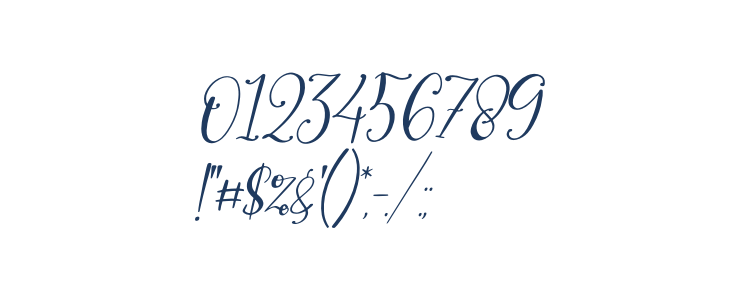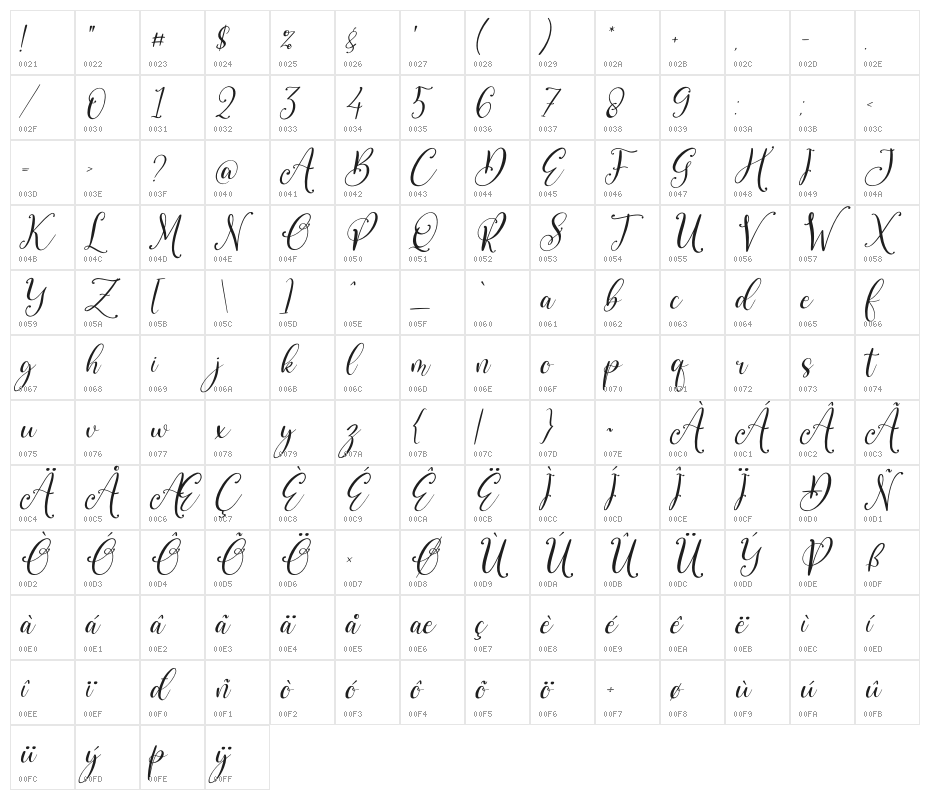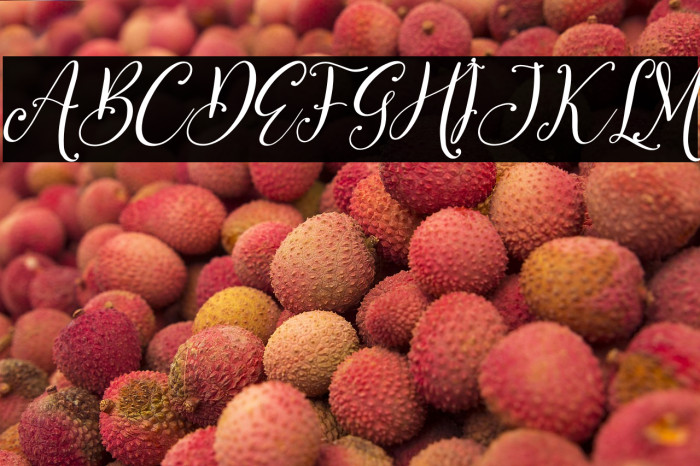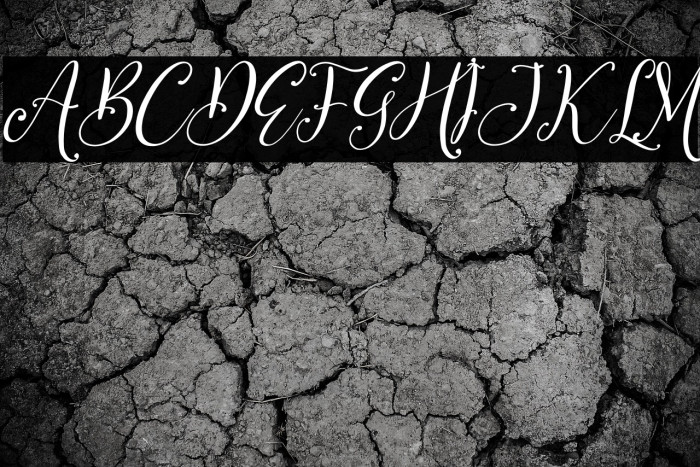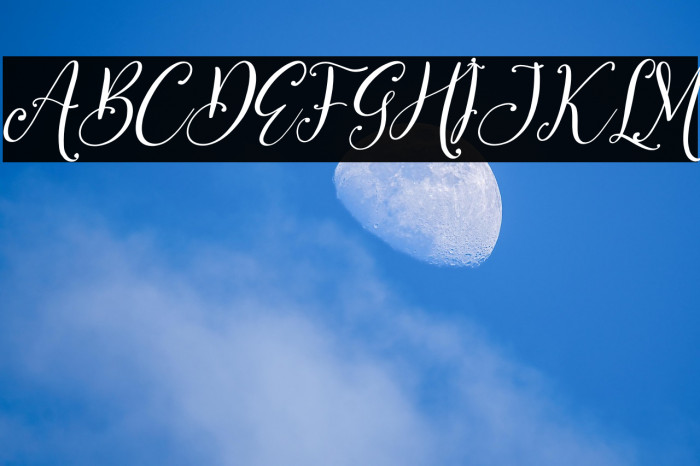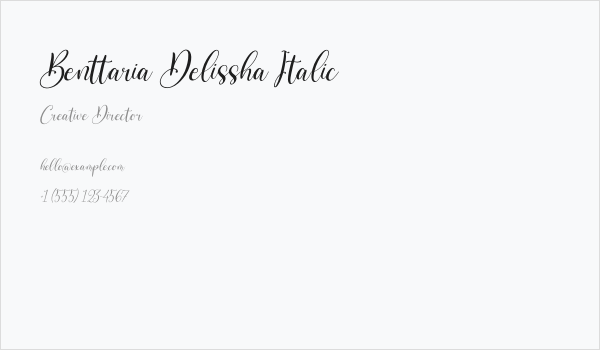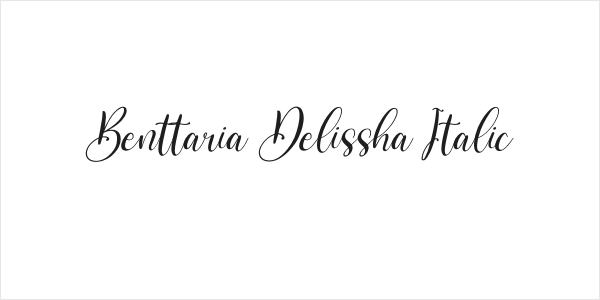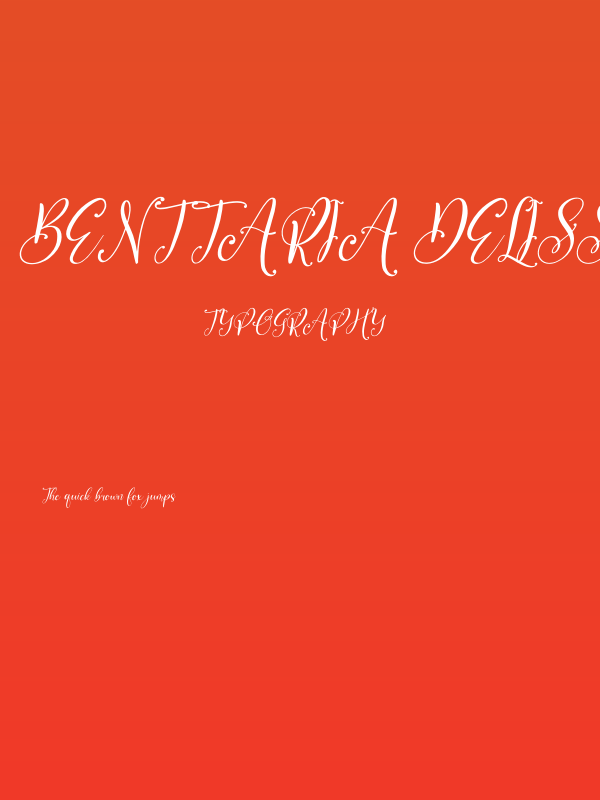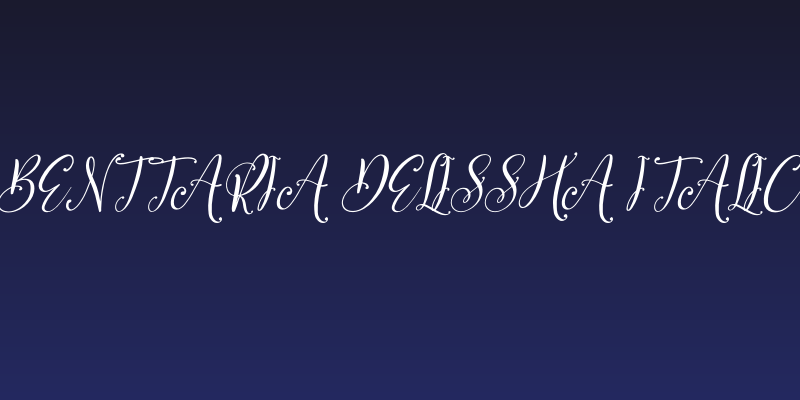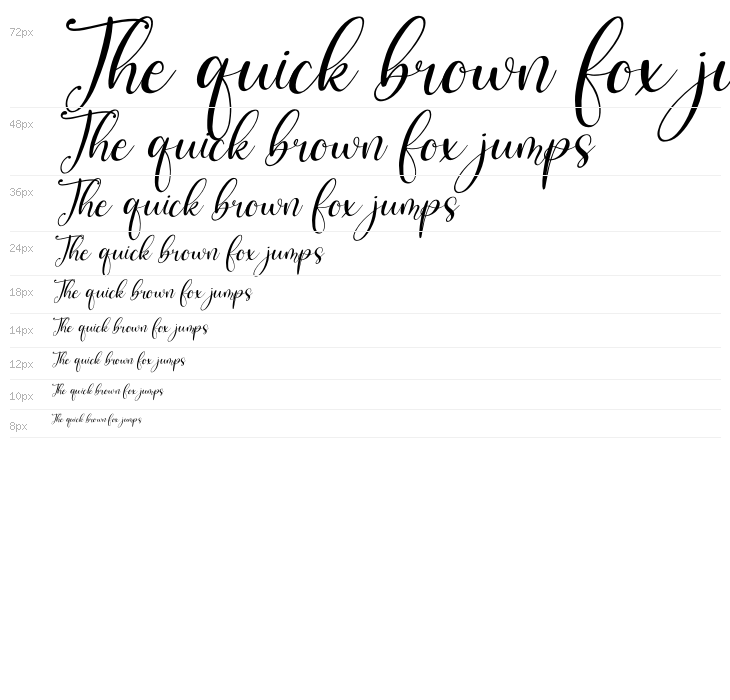
Benttaria Delissha Italic Font
Benttaria Delissha Italic Description
This elegant script font features flowing, cursive letters with a sophisticated flair. The characters are intricately designed with smooth curves and delicate strokes, giving it a graceful and artistic appearance. The uppercase letters are particularly ornate, with extended swashes and loops that add a touch of luxury and refinement. The lowercase letters maintain a consistent style, complementing the uppercase with their fluidity and charm. Numbers and special characters are crafted with the same attention to detail, ensuring a cohesive look throughout. This font exudes a sense of elegance and is perfect for projects that require a touch of class and sophistication.